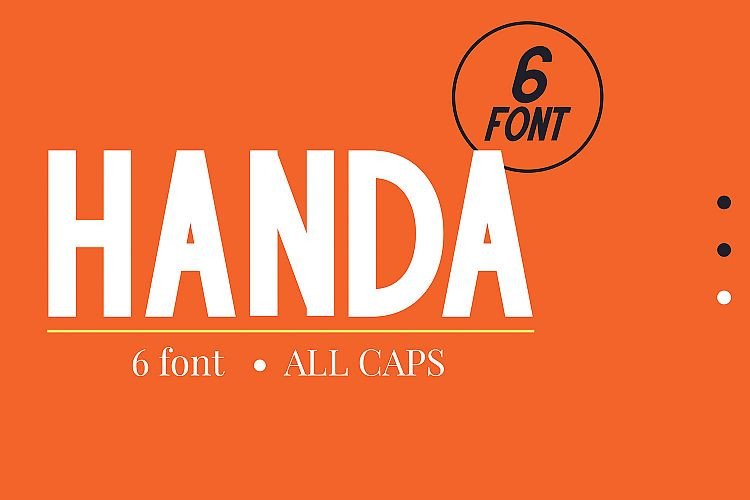
Handa Sans Font Family
Handa Font – This is a geometric sans serif typeface with a few narrow constructed characters to spice up the flow of the text written with this font! It is designed and shared by Attype Studio. Handa Sans Font Family is a strong ALL CAPS sans serif font family include 6 font style. It gives powerfull messages and the typeface can be successfully used in Magazines, Posters, Branding, Websites etc.